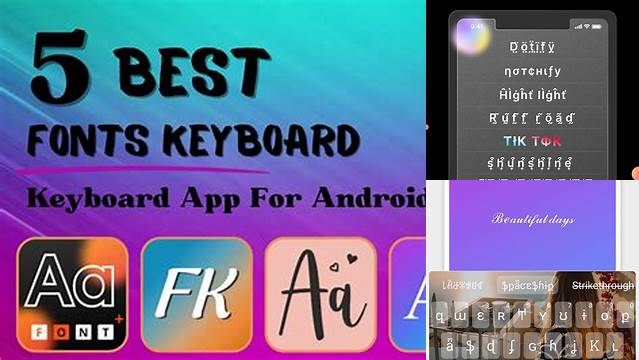
Android & IPhone Fonts: Get Cool Typography With Fonts Keyboard
Fonts for Android and iPhone: Unleash Your Typography Game with Fonts Keyboard
Hey guys! Ever feel like your phone's font is just… blah? You're not alone! We're living in a world where personalization is king, and that includes the way your text looks. Luckily, there's a whole universe of awesome fonts out there, and I'm here to break down how you can jazz up your Android and iPhone with some seriously cool typography. We'll dive into the best fonts, how to get them, and even how to use those nifty "Fonts Keyboard" apps to take your texting game to the next level. Get ready to say goodbye to boring and hello to a font-tastic experience!
Why Fonts Matter: Beyond the Basic
So, why bother with fonts anyway? Well, aside from the obvious aesthetic appeal, using different fonts can actually significantly impact how your message is received. Think about it: a bold, chunky font can convey strength and confidence, while a delicate script font might feel more elegant or romantic. The right font can instantly change the tone of your message. When you're using a custom font, it's like adding a splash of personality to your digital footprint. It's a fun way to express yourself and stand out from the crowd. If you’re running a business, choosing the right font for your brand is essential because it is an integral part of your visual identity, shaping your audience's perception of your company. A well-chosen font can help reinforce your brand values and create a consistent look and feel across all of your marketing materials. So choosing the right font isn’t just about aesthetics – it is about crafting your brand identity! Additionally, using custom fonts can make your content more engaging and improve readability. By breaking up text, highlighting key information, and adding visual interest, you can prevent your content from seeming like a boring wall of text.
The Psychological Impact of Fonts
Fonts do more than just look pretty – they actually have a psychological impact on how we perceive information. This is a significant aspect of typography that is very important. The choice of font can influence how your message is received by creating a certain emotional response from the readers. Different fonts will create different impacts. For example, some people associate a specific font with professionalism, creativity, or even a sense of nostalgia. When you choose a font for your content, you are actually communicating the message that comes with the font. The font can play a big part in shaping your brand identity by creating a specific impression. Choosing a font can influence your brand’s success. So next time you choose a font, consider how it aligns with the message you are trying to deliver. Moreover, fonts can influence your audience's impression of your content. The font can affect how your content looks to readers. This is very important because the font can grab the audience’s attention and make your content more appealing. The way you present your content can influence your audience. Choose fonts that are easy to read and visually appealing can boost your audience’s interaction with your content and brand image. So, you see that the right font can make a significant impact on your content’s effectiveness!
Choosing the Right Fonts: Android vs. iPhone
Let's get down to the nitty-gritty. The good news is that both Android and iPhone offer plenty of options for font customization. However, the process of changing fonts can vary slightly depending on your device. But not to worry, I will give you the lowdown! Android, being the more open operating system, gives you more flexibility in terms of system-wide font changes. iPhones, on the other hand, tend to be a bit more locked down, but you still have plenty of ways to inject some font flair into your life.
Android Font Freedom
iPhone Font Fun
While iPhones are a bit more restrictive, you still have cool options for customizing your fonts:
- App-Specific Fonts: The most common way to change fonts on an iPhone is within specific apps. Many apps, especially those focused on content creation or social media, offer a variety of font choices. Check the app's settings to see what's available.
- Fonts Keyboard Apps: This is where the magic happens! Apps like